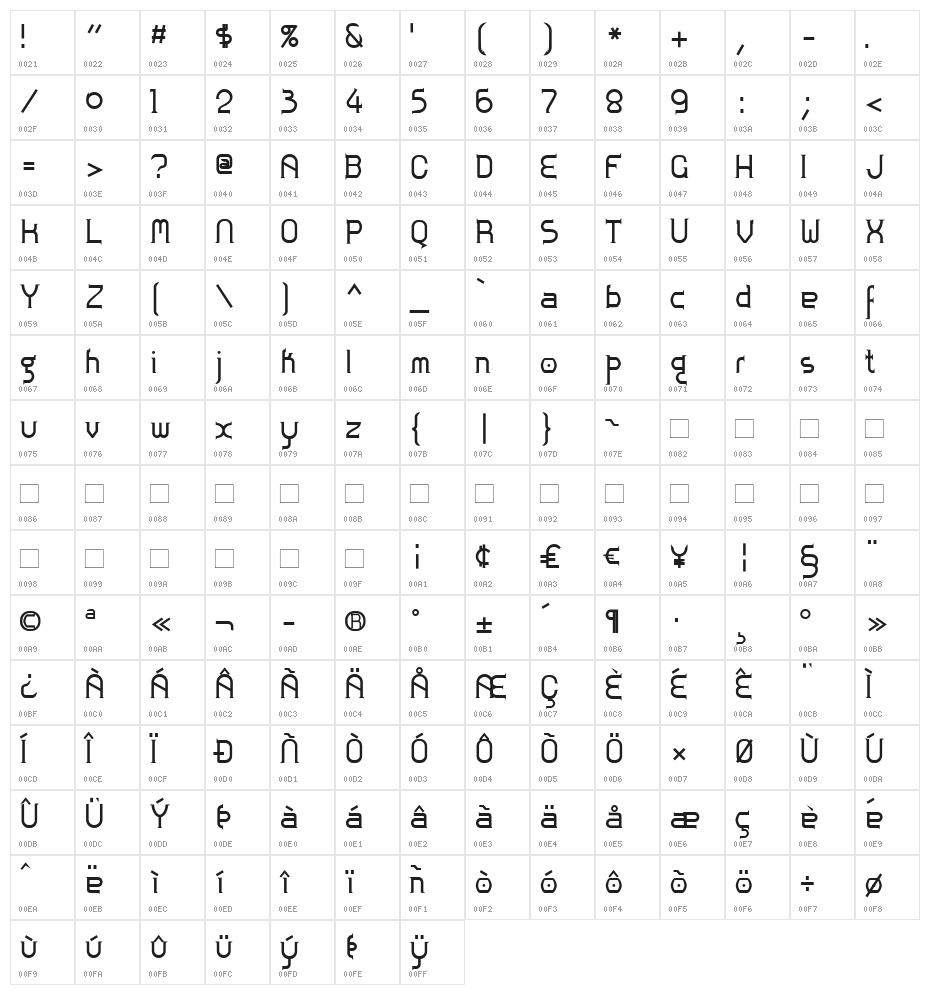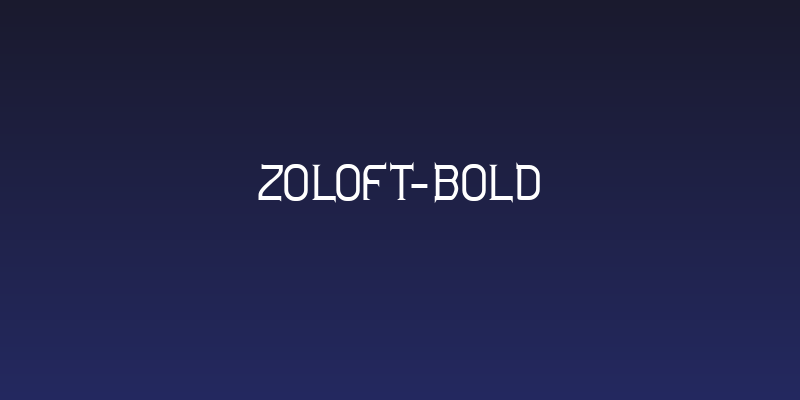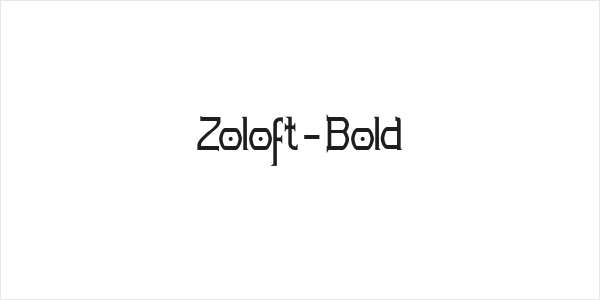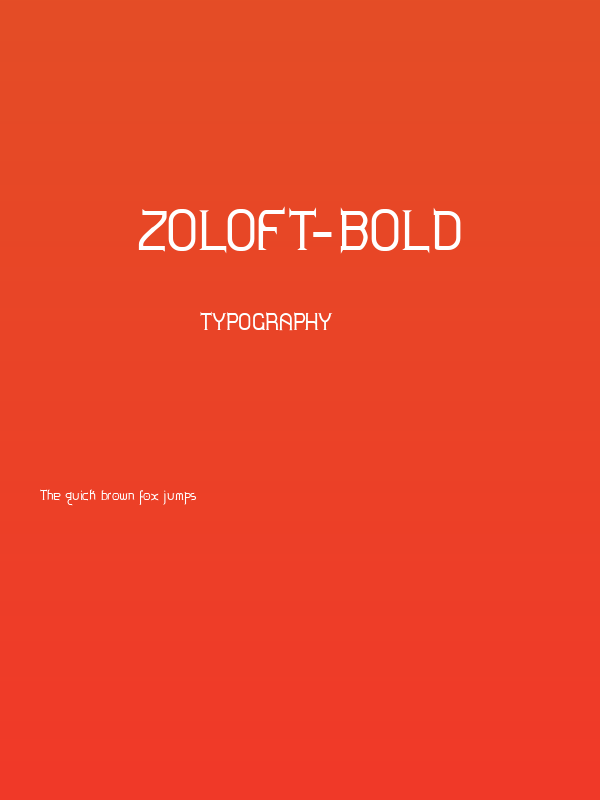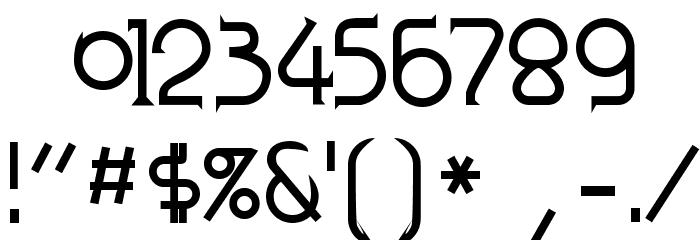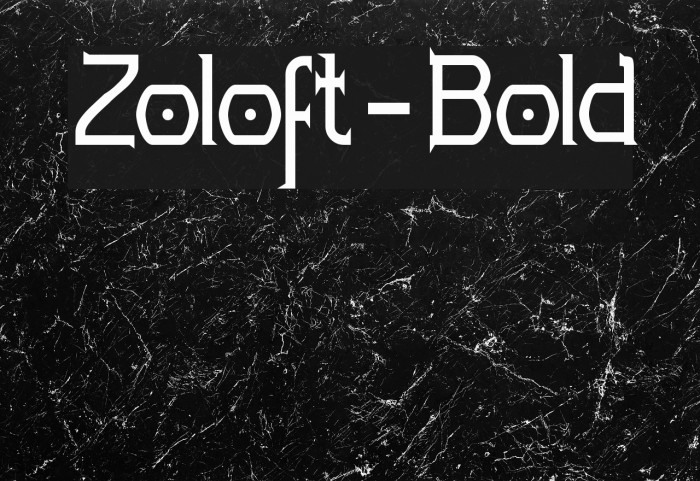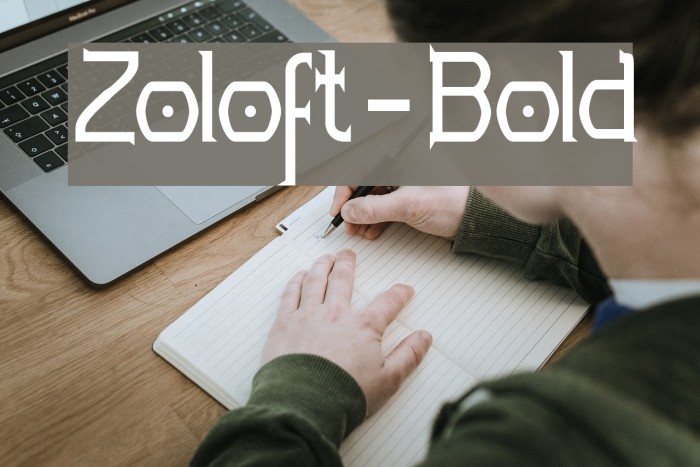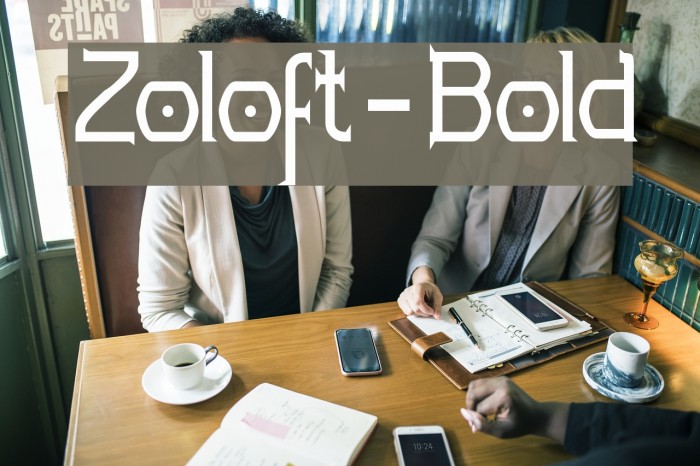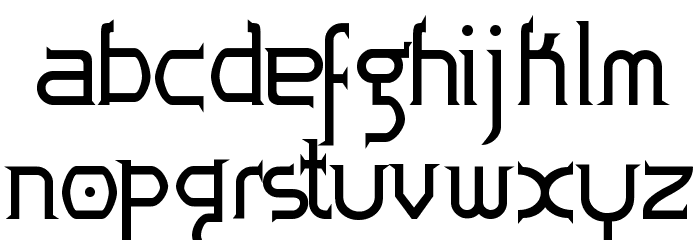
Zoloft-Bold Font
Zoloft-Bold Description
This font features a bold and geometric design with sharp, angular edges and a futuristic aesthetic. The uppercase letters are uniform in height, while the lowercase letters maintain a consistent style with unique, angular terminals. The numerals are distinct and align well with the overall geometric theme. Special characters are designed to match the bold and angular nature of the alphabet, providing a cohesive look across all glyphs. The font's boldness and unique style make it stand out, suitable for projects that require a modern and edgy appearance.
| Proposed Projects | Ideal for sci-fi themed designs, technology branding, video game titles, and modern posters. |